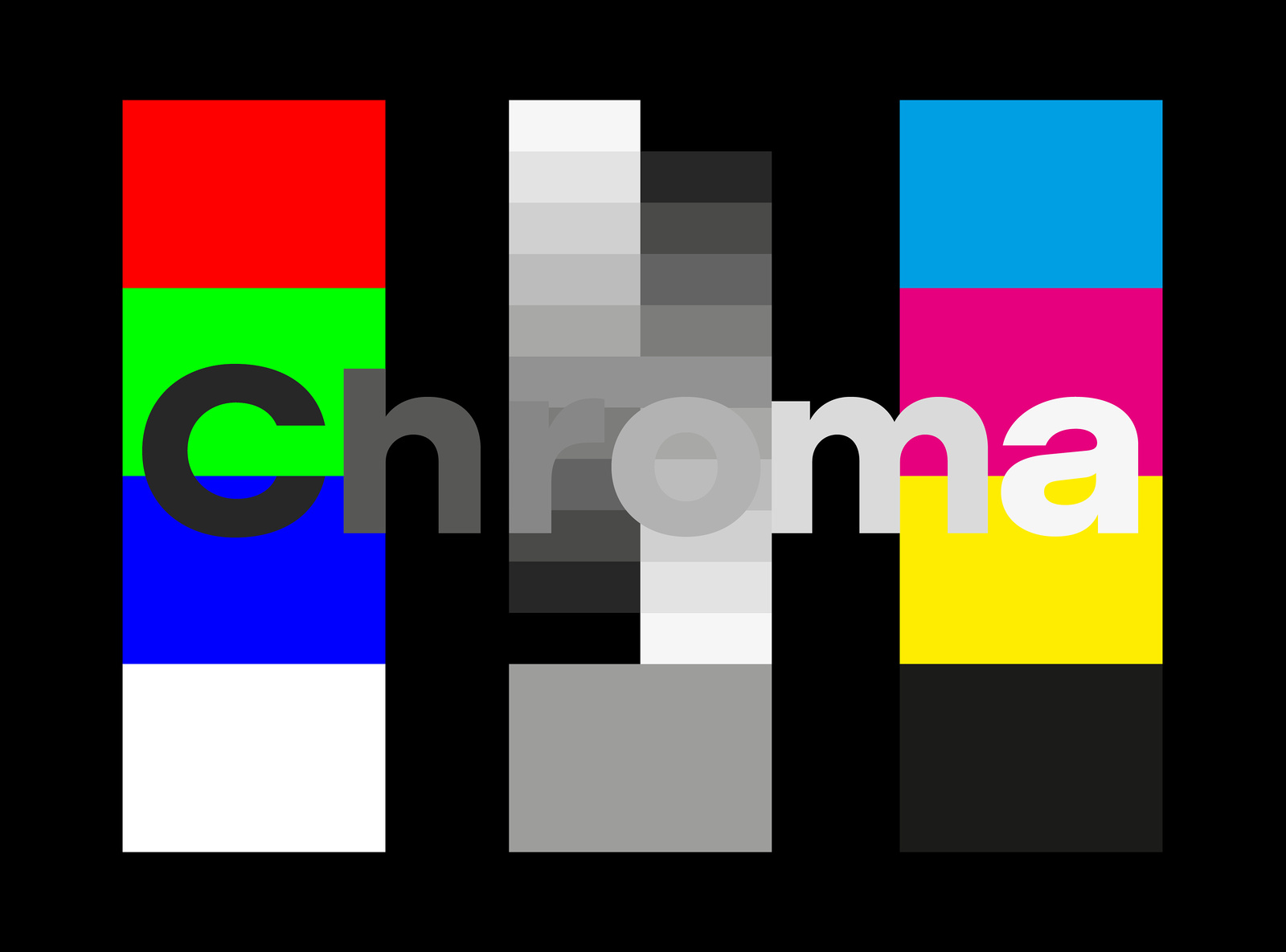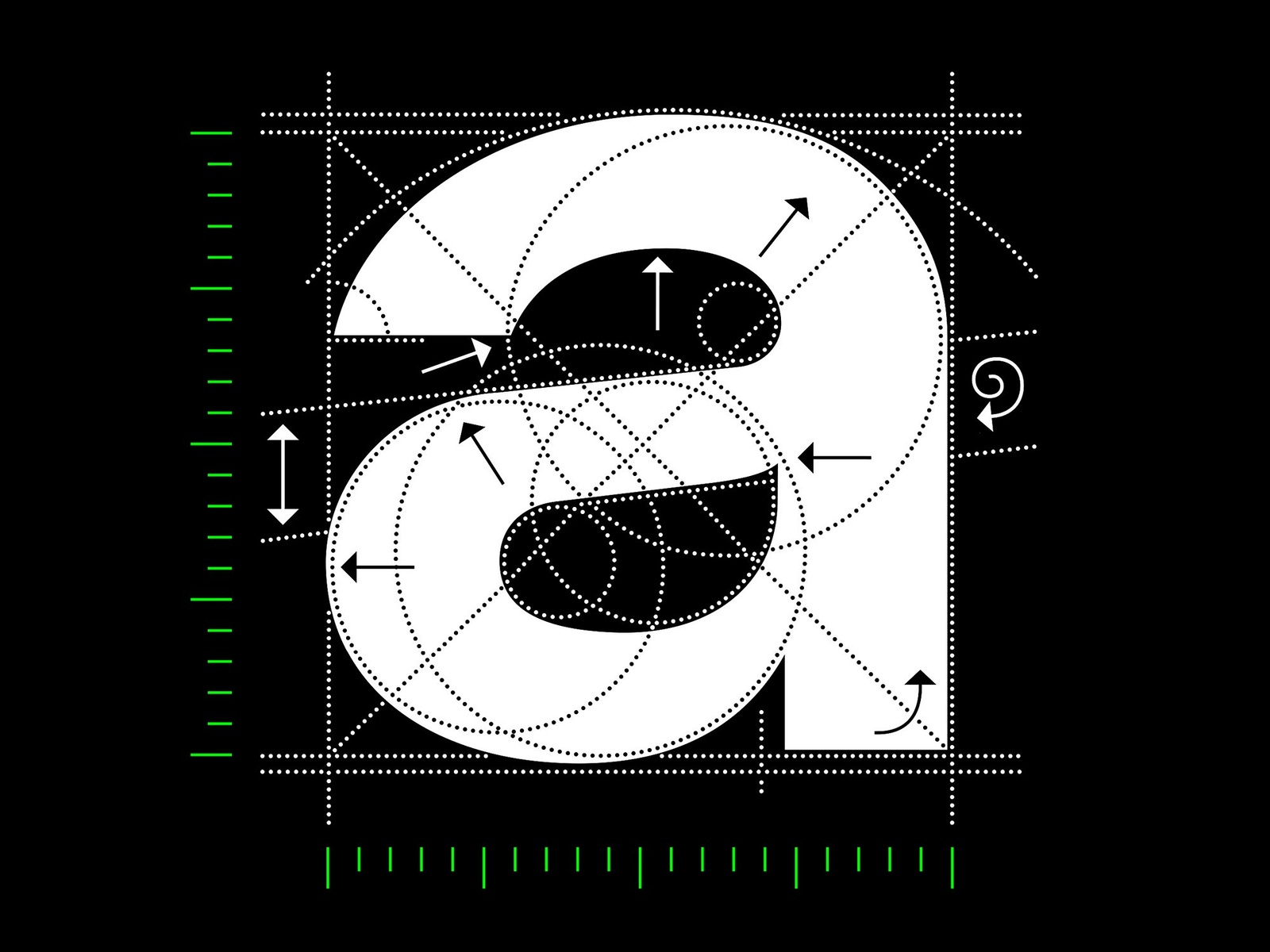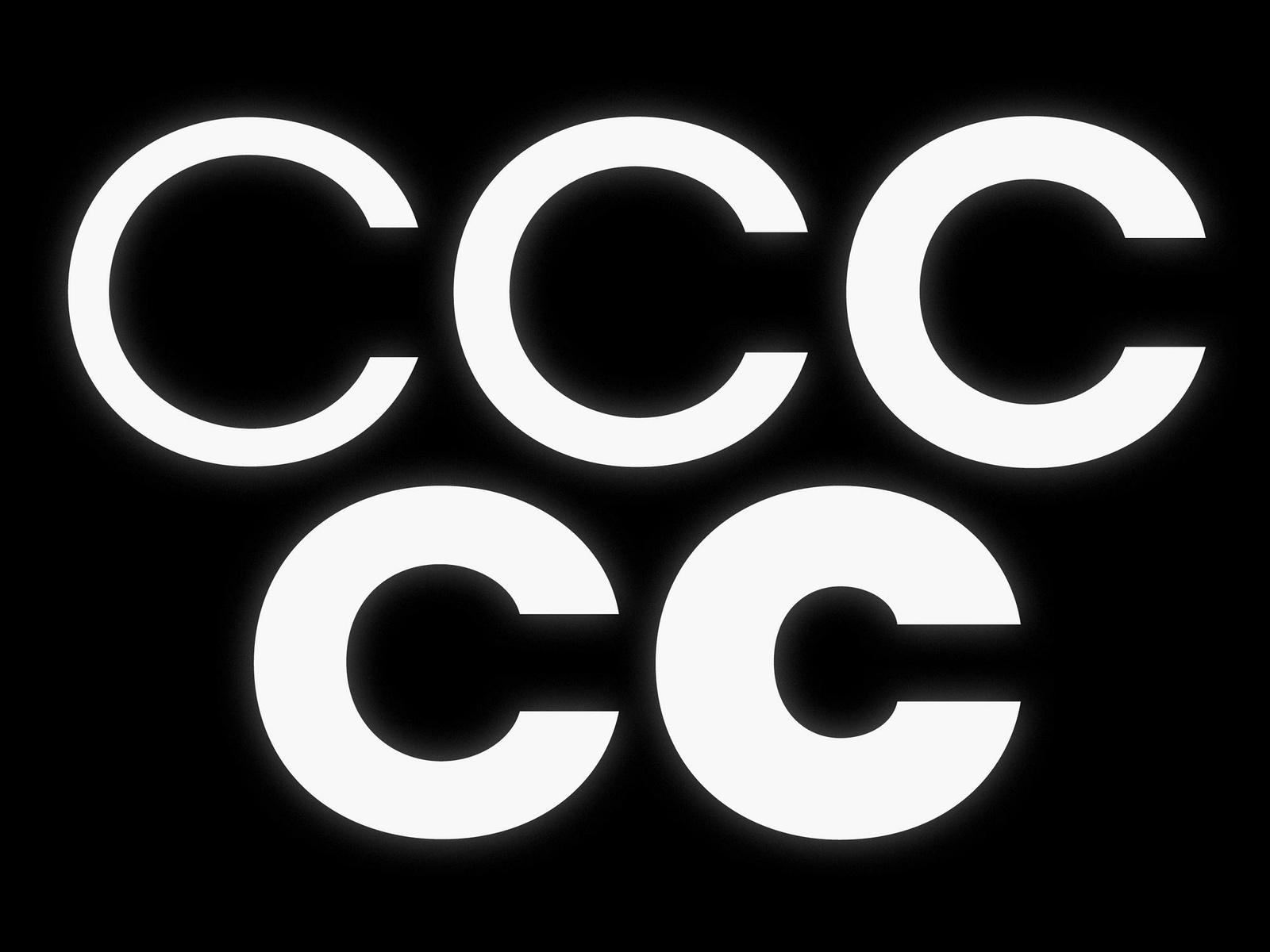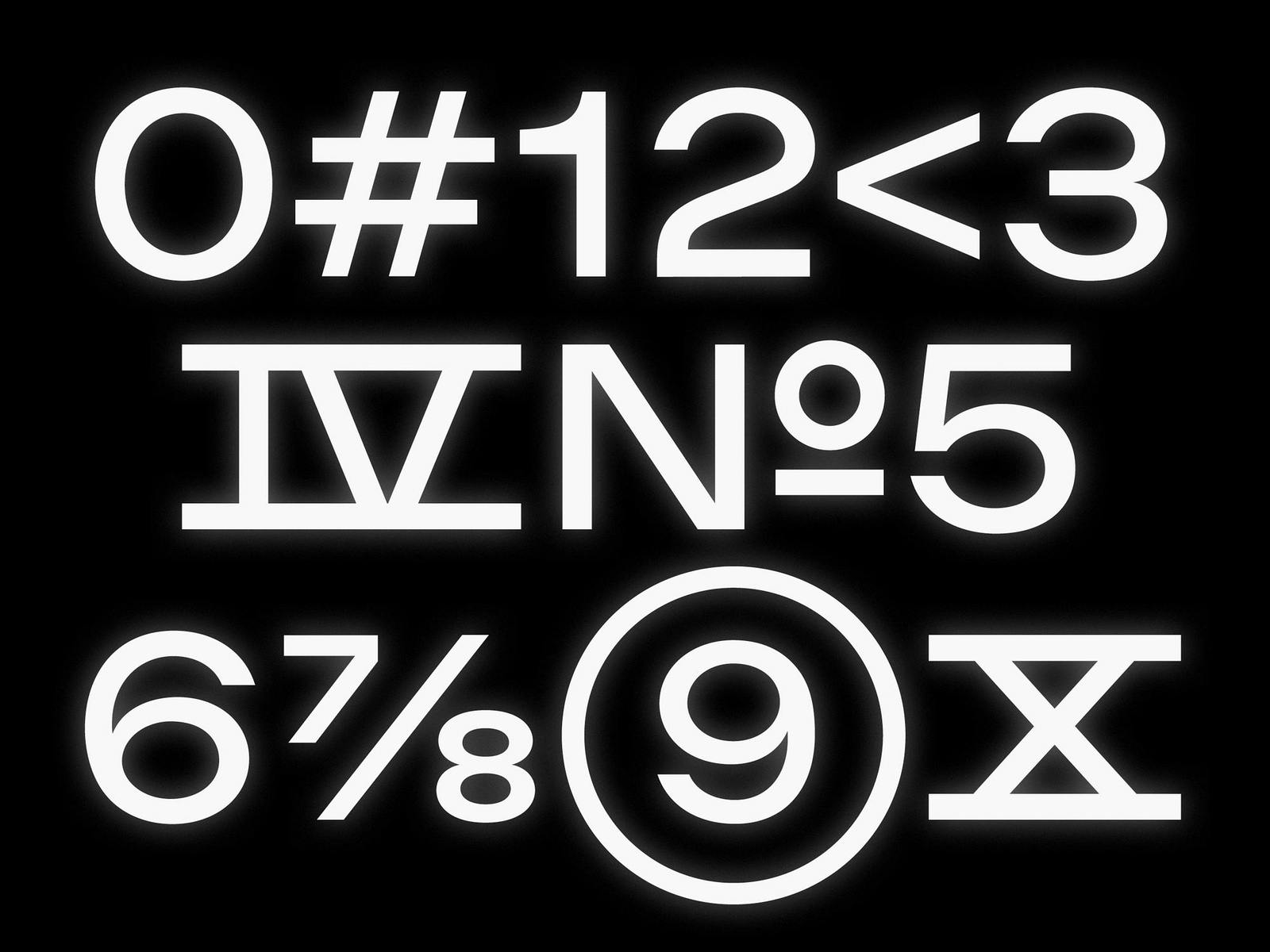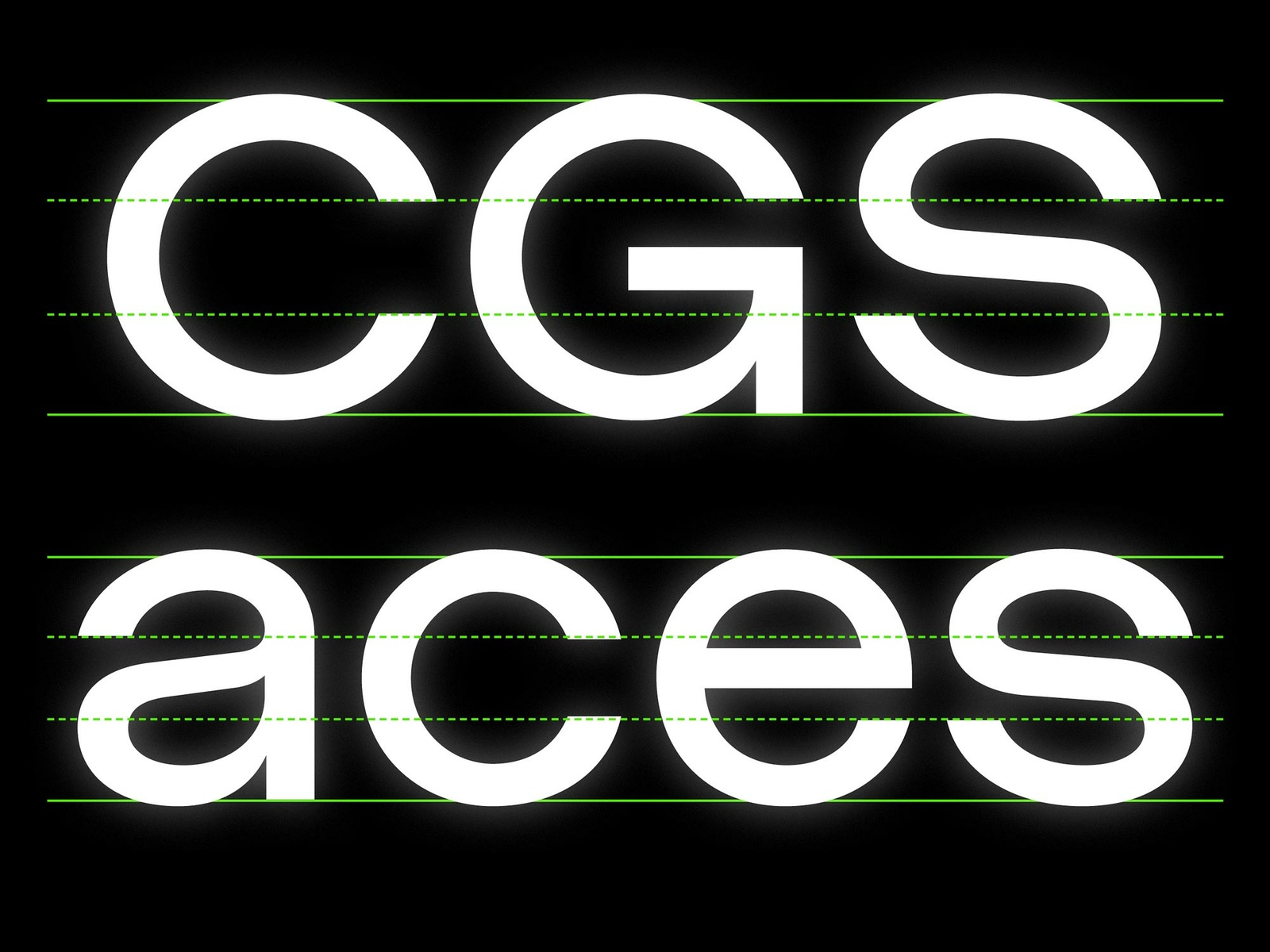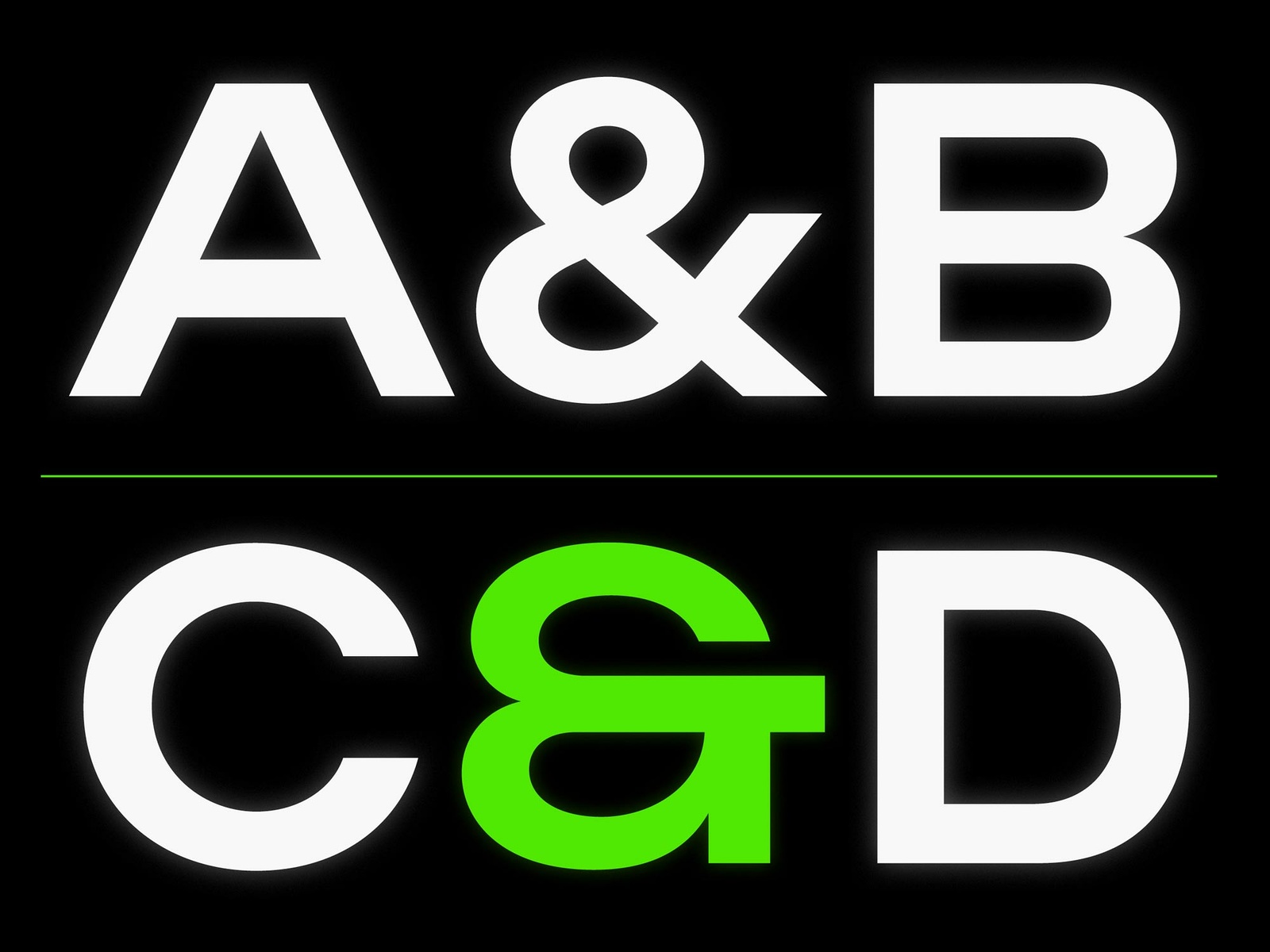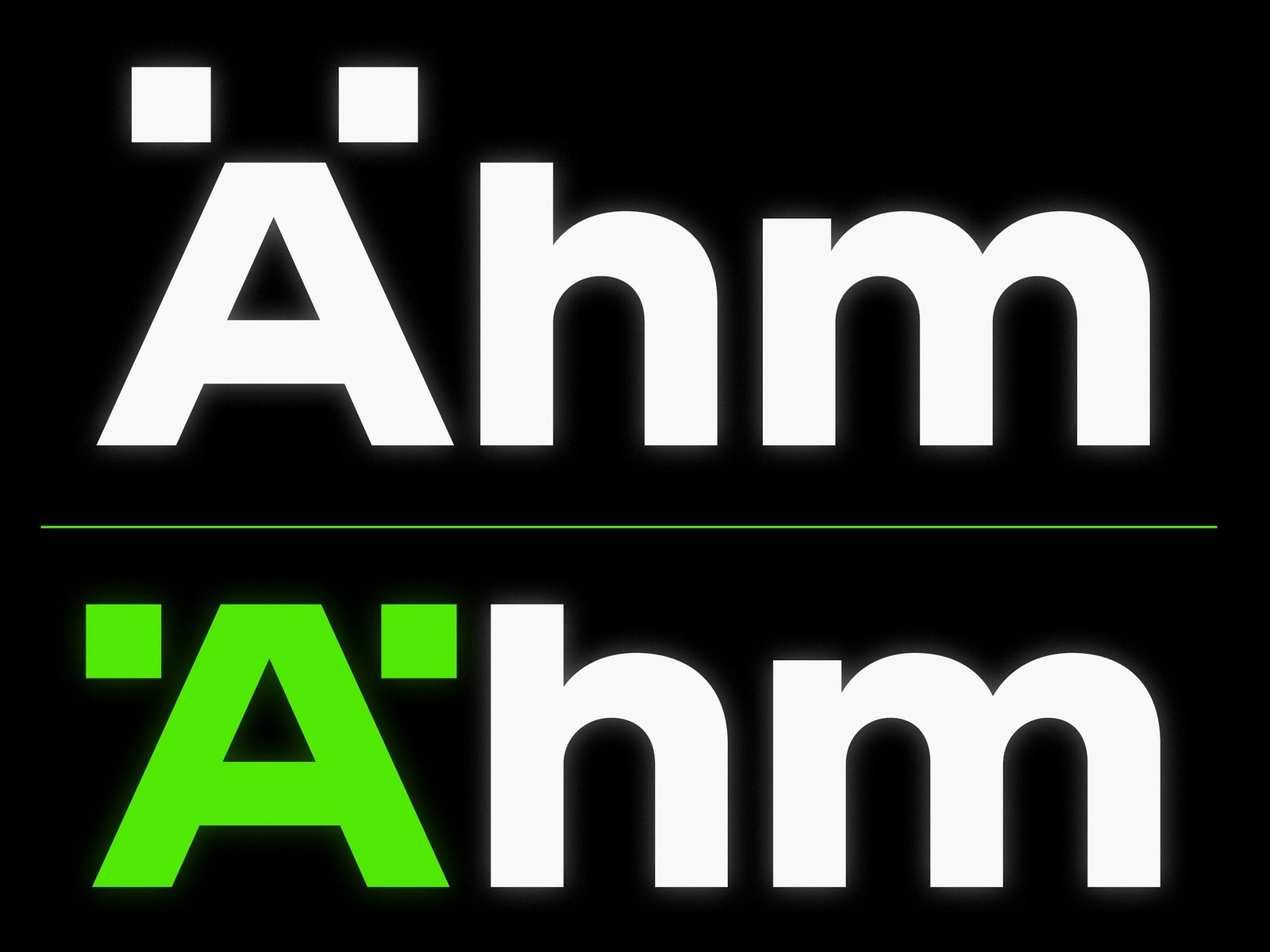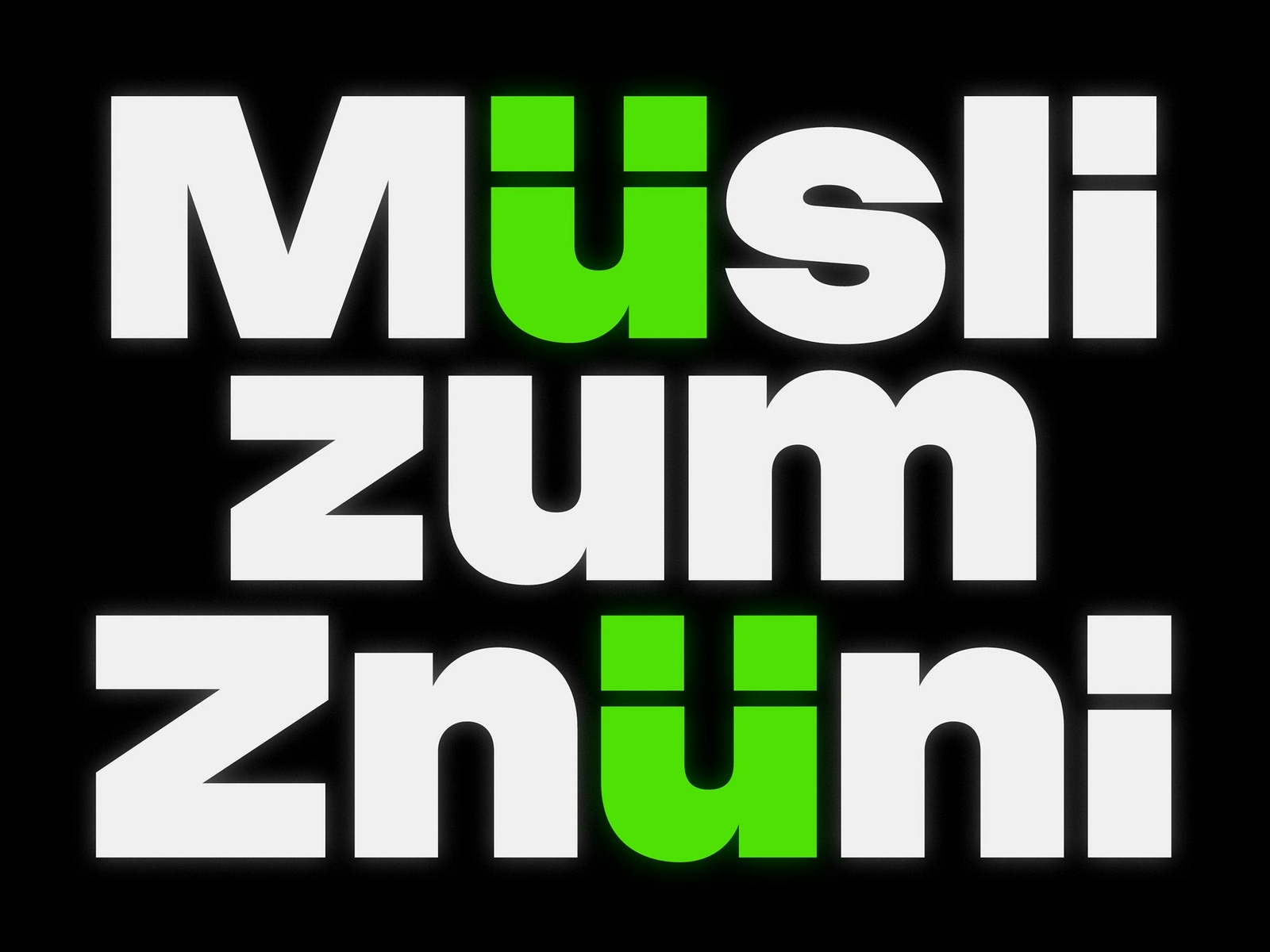
About Chroma
Chroma is a sophisticated sans serif that combines elegant curves with a bold graphic stance. The slightly extended font covers a wide spectrum of weights, from black display use to bright text applications. The typeface finds early inspiration from a poster discovered in the book Graphic Design Manual (1965) by Armin Hofmann. While the unique graphic letterforms sparked the initial inspiration for Chroma, Selina Bernet re-energized the 60s Swiss aesthetic with her own contemporary design sensibilities.
Over years of development the typeface garnered underground notoriety in its pre-released form and has been used for a variety of projects in a mix of industries. We’re proud to present Bernet’s debut font, as she has been part of the Source Type family since day one. Chroma is now officially available, an unparalleled Swiss banger featuring a set of weights crafted for peaktime or afterhours.
Poster for the lightbulb manufacturer Osram found in Armin Hofmann’s Graphic Design Manual: Principles and Practice (1965).